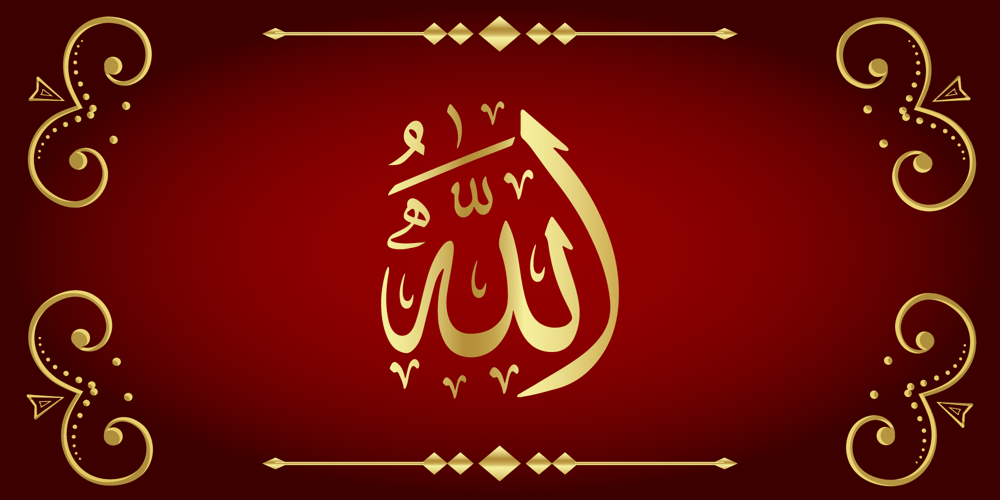
99 Names of ALLAH Complete
99 Names of ALLAH Complete font
99 Names of ALLAH Complete Font Family was designed by Ibrahim Abdo and published by Islamic Calligraphy75. 99 Names of ALLAH Complete contains 1 styles and family package options. We have transformed the “99 names of ALLAH” into a font. That means each key on your keyboard represents 1 of the 99 names of ALLAH Aaza Wajal. The fonts work with both the English and Arabic Keyboards.We call this Calligraphy “complete” because this is the only calligraphy where the complete set of decorative letters have been used. The calligraphy is more on the traditional side, letters don’t overlap, the “ye” at the end of the names doesn’t have the two dots, and a decorative “ye” has been included. The first “Alef” doesn’t have a “hamzit wasel” nor a “fatha”, this indicates to skip the pronunciation of that first letter. So instead of saying “AR-RAHMAAN” you say “R-RAHMAN”. (in the zip file you will find a pdf file explaining the differences in the “harakat”, pronunciation and spelling according to the Holy Quran). In other calligraphy you don’t usually find the decorative letters: “Dal, Ra & Ye” but we like them and we use them. Decorative letters used in this calligraphy: “Mim, Aain, Sin, HHe, He, Kaf, Tah, Dal, Ra, Alef, Ye & Saad”.Purpose & use:- Writers: Highlight the names in your texts in beautiful Islamic calligraphy.- Editors: Use with kinetic typography templates (AE) & editing software. – Designers: The very small details in the names does not affect the quality. Rest assured it is flawless.The MOST IMPORTANT THING about this list is that all the names are 100% ERROR FREE and you can USE THEM WITH YOUR EYES CLOSED. All the “Tachkilat” are 100% ERROR FREE, all the “Spelling” is 100% ERROR FREE, and they all have been written in accordance with the Holy Quran. No names are missing and no names are duplicated. The list is complete “99 names +1”. The +1 is the name “ALLAH” ‘Aza wajal.Another important thing is how we use the decorative letters. In every font you will see small decorative letters, these letters are used only in accordance with their respective letters to indicate pronunciation & we don’t include them randomly. That means “mim” on top or below the letter “mim”, “sin” on top or below the letter “sin”, and so on and so forth.Included:Pdf file telling you which key is associated with which name.In that same file we have included the transliteration and explication of all 99 names.Pdf file explaining the differences in the harakat and pronunciation according to the Holy Quran.Here is a link to all the extra files you will need:https://drive.google.com/drive/folders/1Xj2Q8hhmfKD7stY6RILhKPiPfePpI9U4?usp=sharing